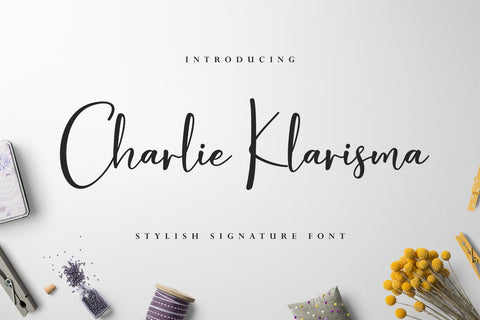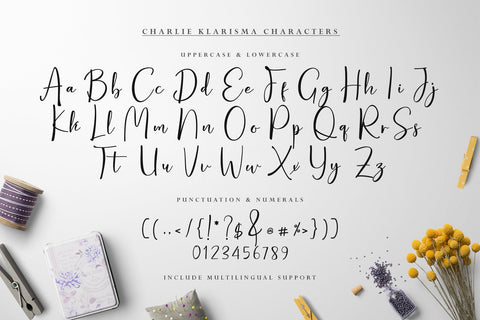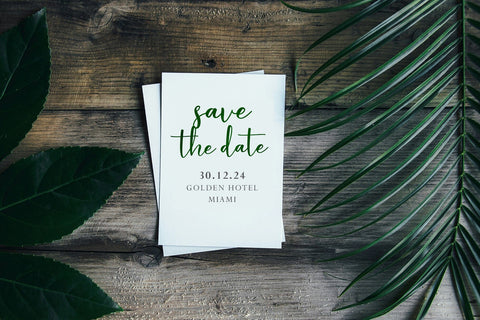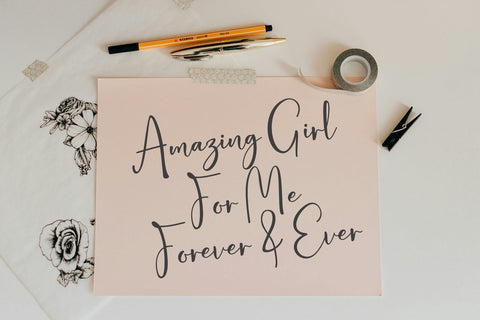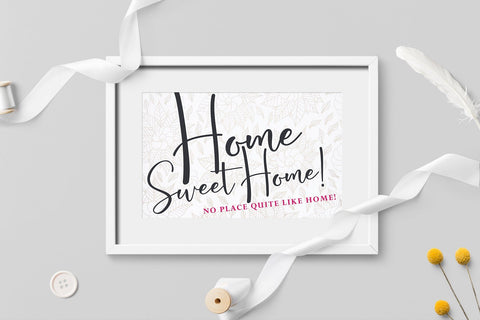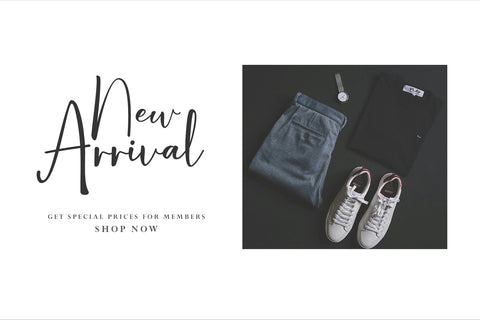
Charlie Klarisma Signature Font
Introducing Charlie Klarisma Signature Font!
This is a new modern & fresh script with a handwritten and signature style make this font looks elegant, natural, stylish and perfect for any awesome projects that need handwriting taste.
This font is very suitable for design needs such as Cricut design, logo's, branding projects, homeware designs, product packaging, mugs, quotes, posters, shopping bags, logo's, t-shirts, book covers, name card, invitation cards, greeting cards, and all your other lovely projects.